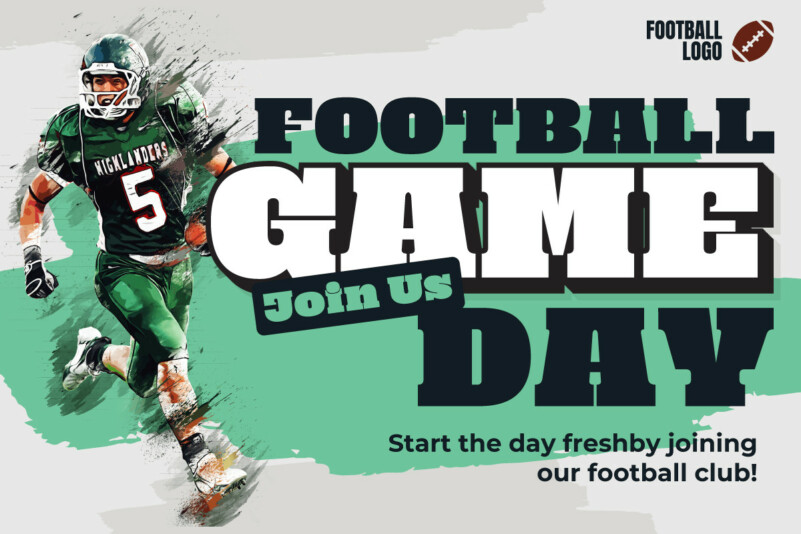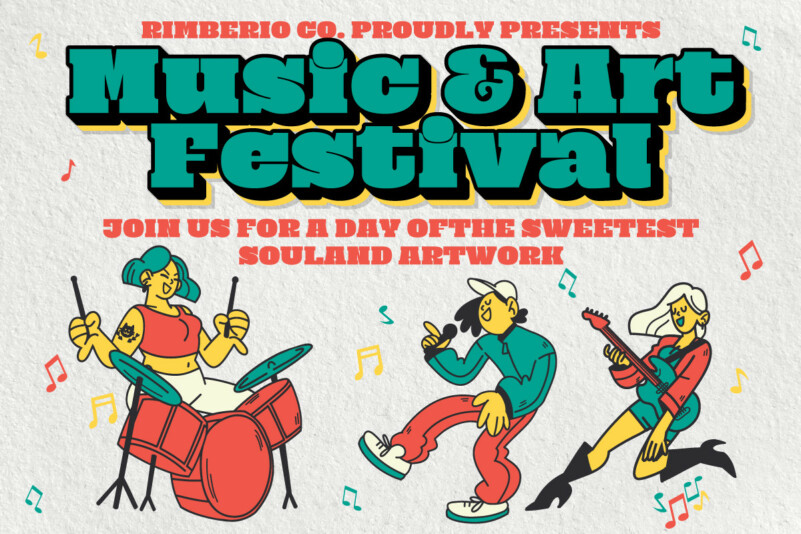
Sefund Ragat Font
Sefund Ragat Slab Serif Font is a font that exudes strength and boldness with its thick and powerful serif design. Perfect for making a statement and standing out from the crowd, this font is sure to make an impact on any project.
With its versatility and multilingual support, Sefund Ragat is suitable for various applications such as branding, headlines, packaging, and more. The font comes in various weights to provide more options and flexibility to match the desired tone and mood of the design.